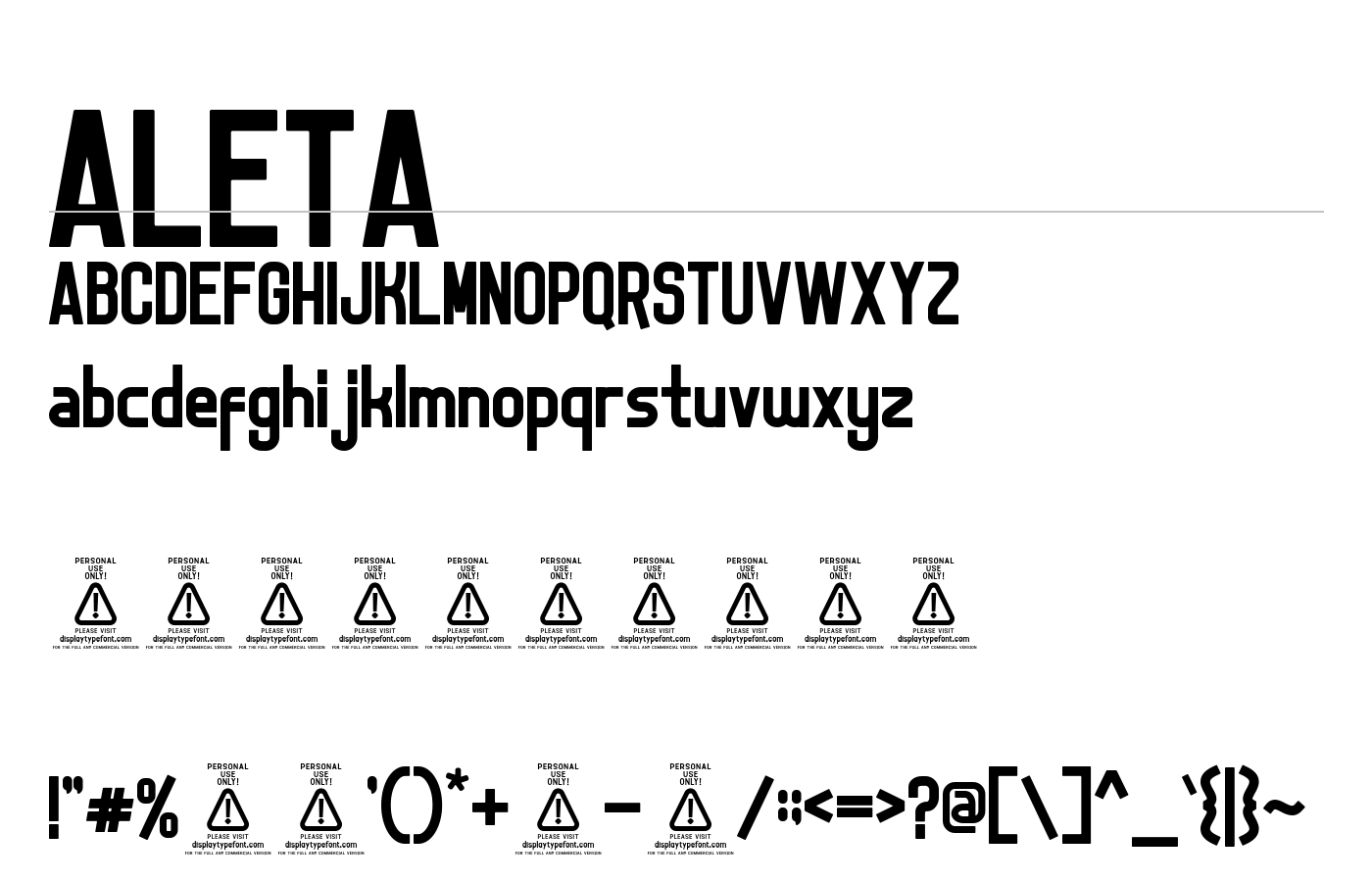
ALETA is a bold, condensed sans serif font characterized by its tall, narrow letterforms and minimal stroke contrast, lending it a strong and modern appearance. Its clean, geometric shapes combined with unique details like the distinctively angled Q tail and compact lowercase letters make it ideal for impactful headlines, branding, and contemporary design projects that need a confident and urban edge. This font works well in display contexts where clarity and attention-grabbing style are essential.
ALETA Font
About ALETA Font
| Font family | ALETA Font |